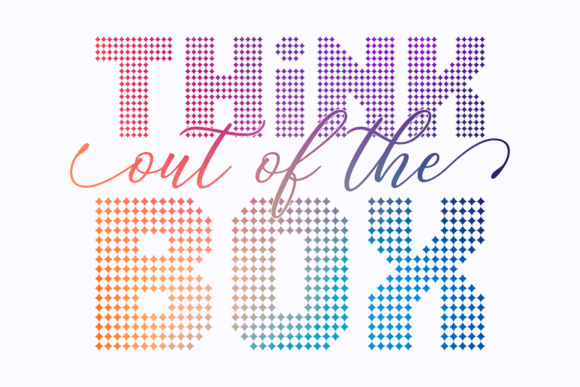
Spark Day Font
The “Spark Day” font is a distinctive and vibrant display typeface that stands out due to its unique construction from tiny, diamond-shaped elements. This geometric, pixel-like design gives it a playful yet modern aesthetic, making it excellent for catching the eye. The font’s characters are not solid but are instead composed of these individual “sparks,” creating a textured, dotted appearance. This structure allows for beautiful color transitions, where a gradient of hues flows through the letters. The font includes uppercase letters, numbers, and a range of symbols and punctuation, all maintaining the consistent diamond-dot style.
This font is particularly well-suited for creative projects that require a sense of energy, fun, or a celebratory feel. Designers working on event posters, greeting cards, social media graphics, and branding for children’s products or tech-related services would benefit significantly from its dynamic style. The “Spark Day” font’s key features are its customizable color options and the ability to scale without losing its unique, dot-matrix character. It provides a flexible and visually engaging option for designers looking to add a touch of sparkle and originality to their work.